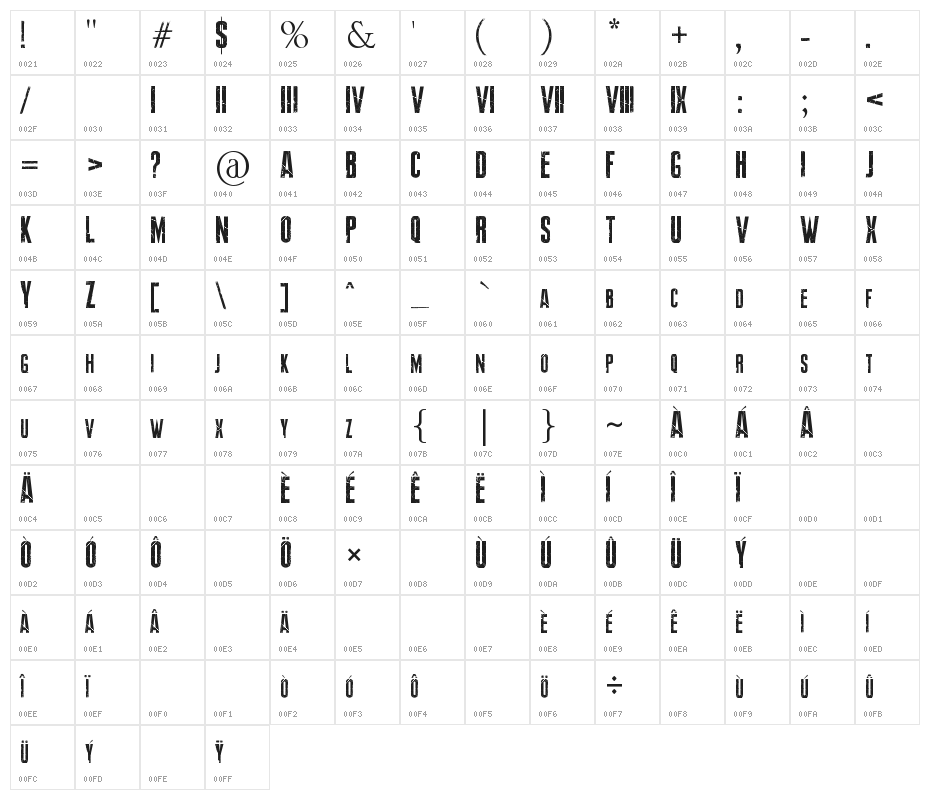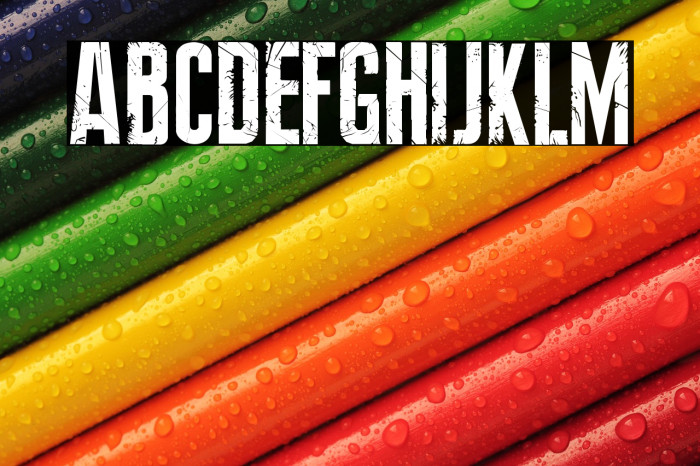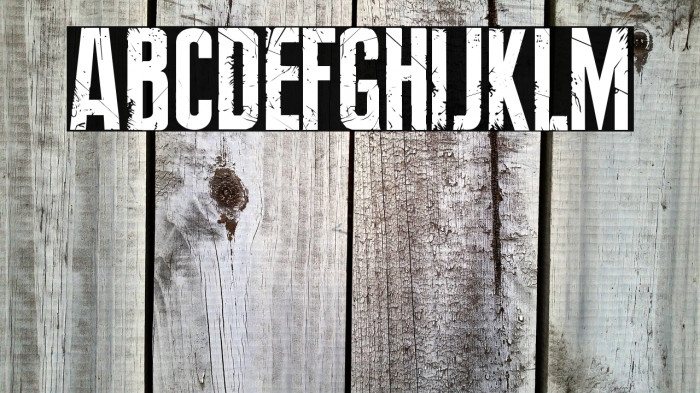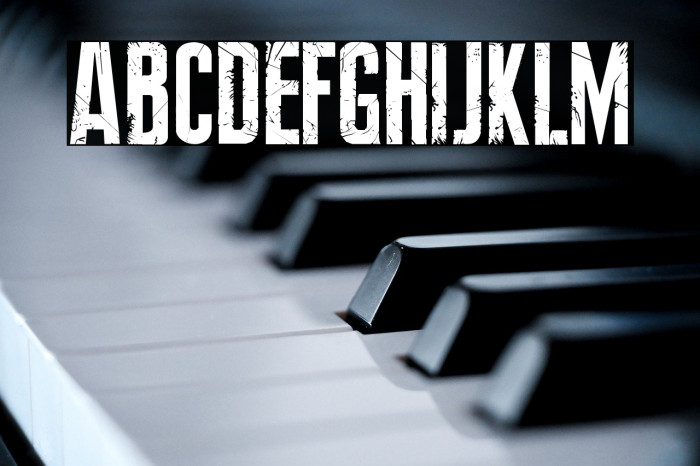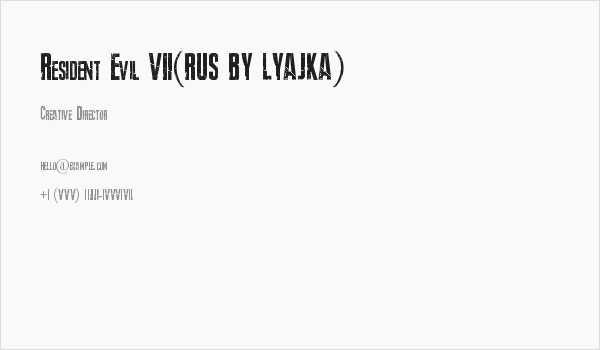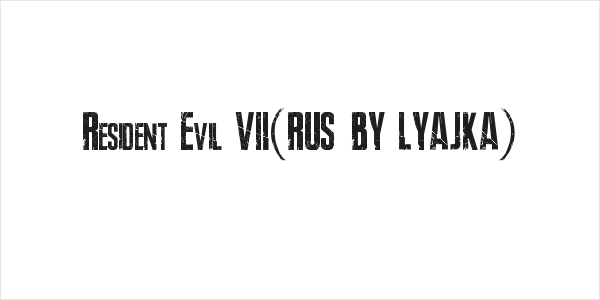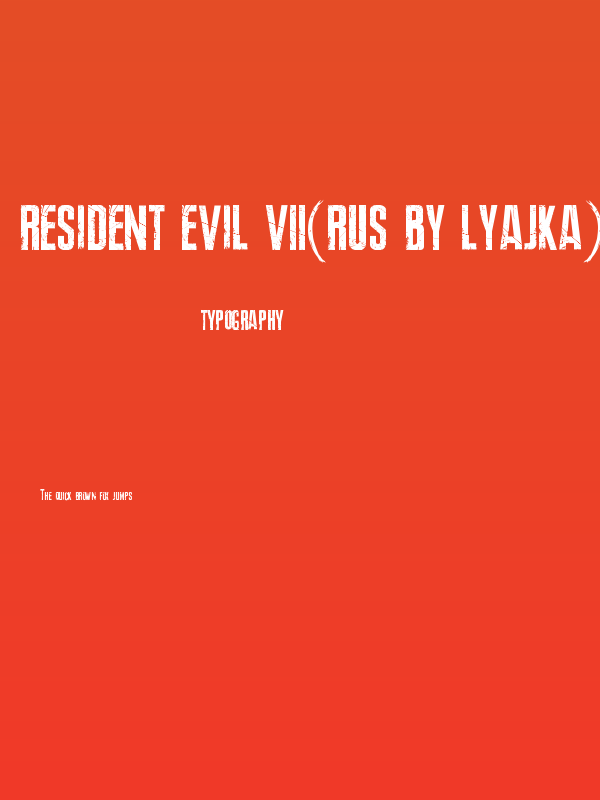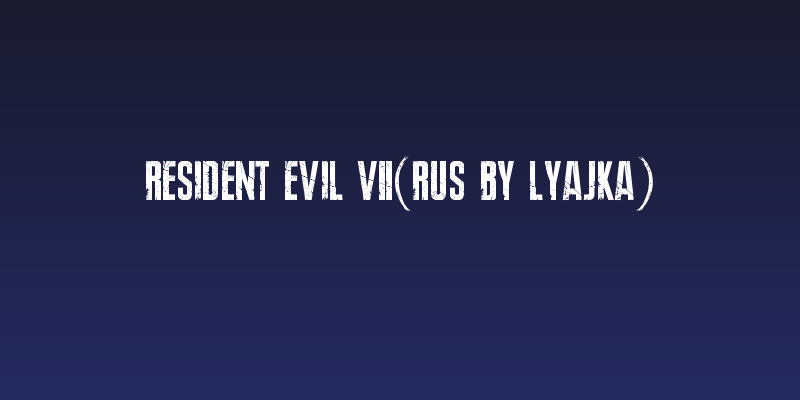
Resident Evil 7(RUS BY LYAJKA) Font
Resident Evil 7(RUS BY LYAJKA) Description
This font features a distressed, grunge style with a bold and rugged appearance. The characters are uppercase with a rough texture that gives them a worn, aged look. The font is highly decorative, making it ideal for projects that require a strong, impactful visual statement. The letters are evenly spaced, with a consistent width that maintains readability despite the distressed effect. This style is reminiscent of horror or thriller themes, adding an edgy and dramatic flair to any design.
| Overall Style | Grunge, Dramatic |
| Proposed Projects | Ideal for movie posters, video game covers, horror-themed events, and edgy branding projects. |